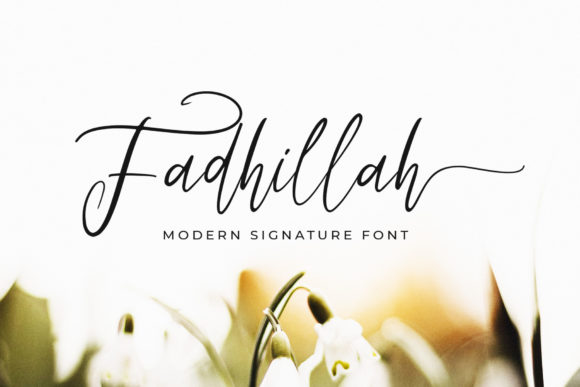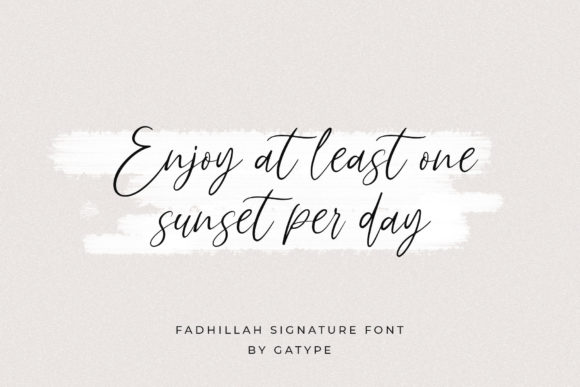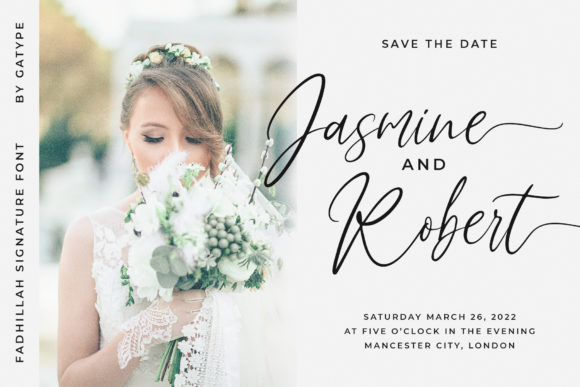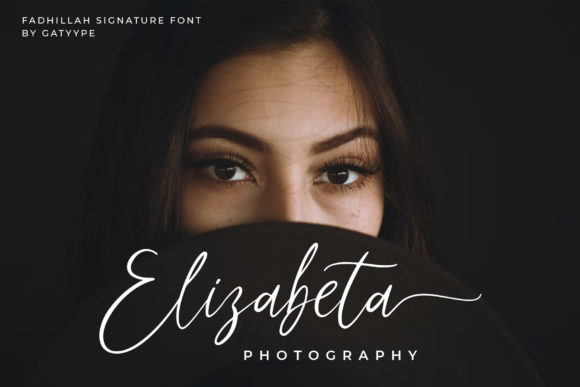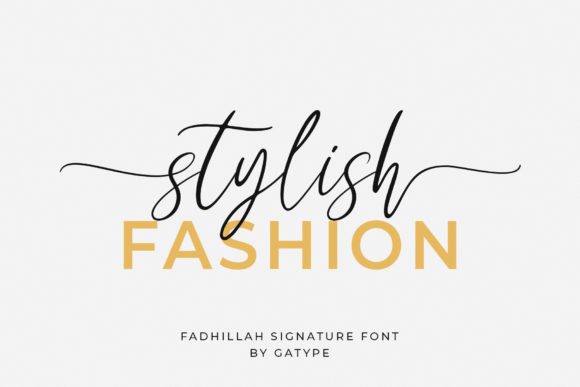
About Fadhillah Signature Font
Fadhillah Signature is a beautifully crafted handwritten font that radiates elegance and authenticity. With its natural and organic look, this font is a perfect fit for a wide range of design projects, offering a touch of sophistication and personal charm.
When it comes to branding projects and logos, Fadhillah Signature brings a sense of refinement and uniqueness. The fluid strokes and delicate curves of the letters create a distinctive visual identity that leaves a lasting impression on your audience. The handwritten style of the font adds a personalized touch, making your brand stand out in a competitive market.
For wedding designs, Fadhillah Signature adds a romantic and intimate feel. Whether it’s on wedding invitations, save-the-date cards, or other wedding-related materials, the font’s elegant appearance enhances the overall aesthetic and captures the essence of special moments.
Social media posts benefit from the authentic and organic look of Fadhillah Signature. It adds a personal touch to your content, making it more relatable and engaging. Whether you’re sharing quotes, announcements, or promotional graphics, this font’s graceful flow adds an extra layer of visual appeal.
Advertisements and product packaging also get a boost from Fadhillah Signature. Its elegant and handwritten style elevates the presentation of your products, helping to convey quality and uniqueness. Labels, tags, and product descriptions benefit from the font’s graceful appearance.
Fadhillah Signature’s PUA encoding allows you to access its extensive set of glyphs and swashes effortlessly. This feature enhances your creative freedom, enabling you to customize the font to suit your specific design needs. Whether you’re adding decorative flourishes, swashes, or alternates, the font’s versatility ensures that you can achieve the desired look with ease.
The font’s natural and organic look also makes it a great choice for personal projects, such as creating customized stationery, art prints, and more. Its timeless elegance adds a touch of sophistication to any creative endeavor.
Overall, Fadhillah Signature is a versatile and elegant handwritten font that enhances a variety of design projects. Its natural and organic appearance, combined with its PUA encoding, offers endless creative possibilities, making it a valuable asset for branding, wedding designs, social media, advertisements, and beyond.